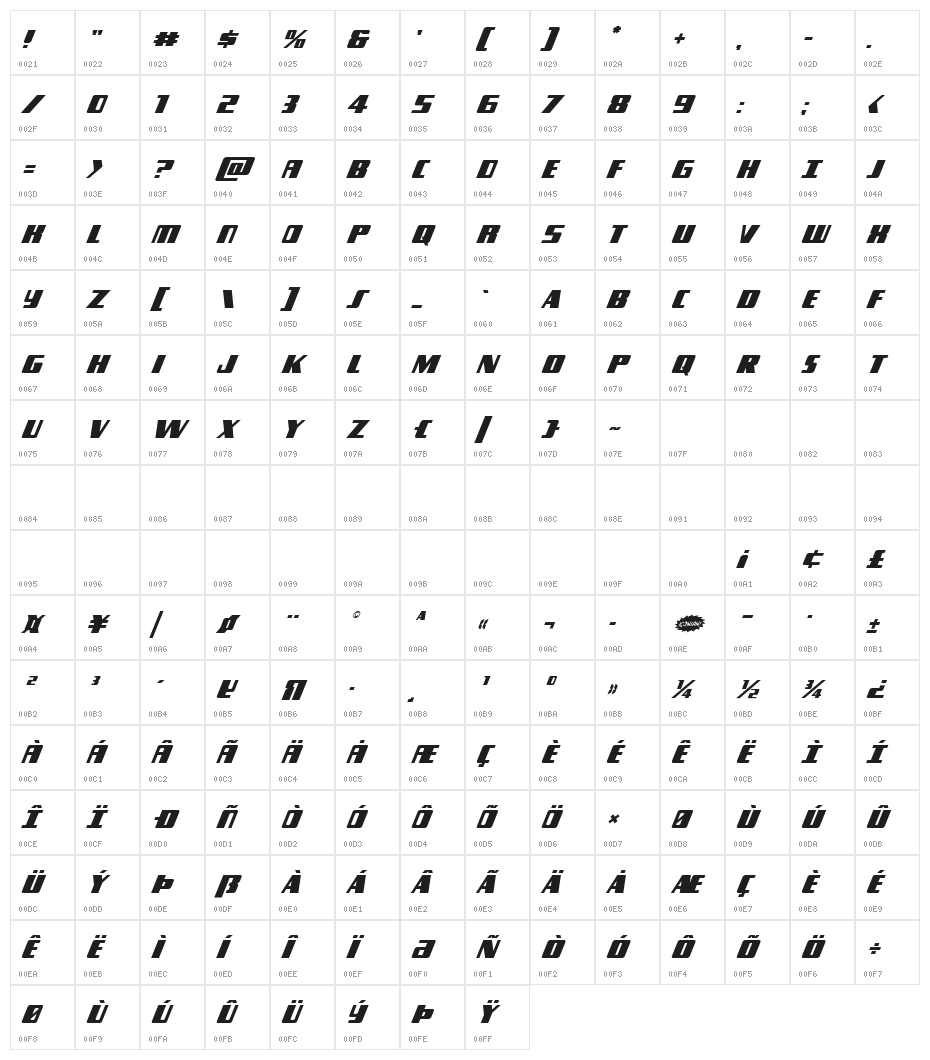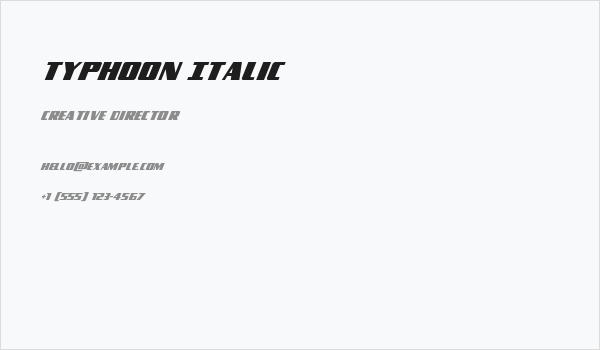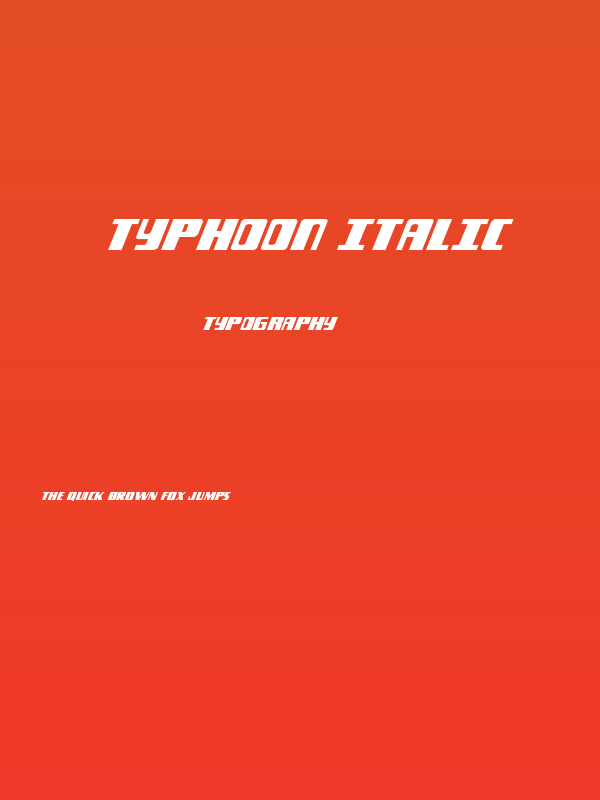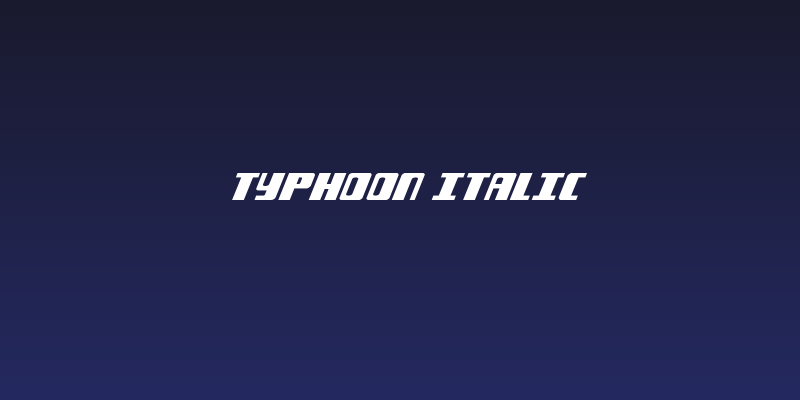
Typhoon Italic Font
Typhoon Italic Description
This font features a bold, italicized style with a strong, dynamic presence. The characters are slanted forward, giving a sense of motion and speed. Each letter is constructed with thick, uniform strokes, creating a powerful and impactful appearance. The design is modern and sleek, with sharp angles and a geometric structure that enhances its boldness. The font maintains a consistent weight throughout, ensuring readability while making a striking visual statement. It is well-suited for projects that require a contemporary and energetic feel.
| Proposed Projects | Ideal for sports branding, automotive advertisements, dynamic posters, and modern logo designs. |